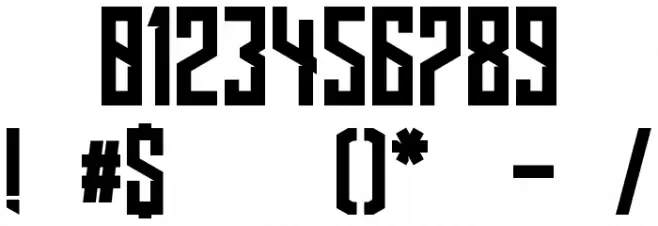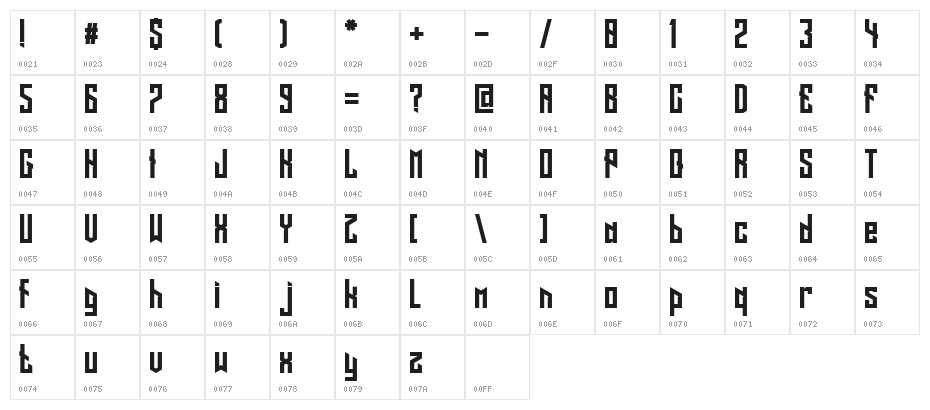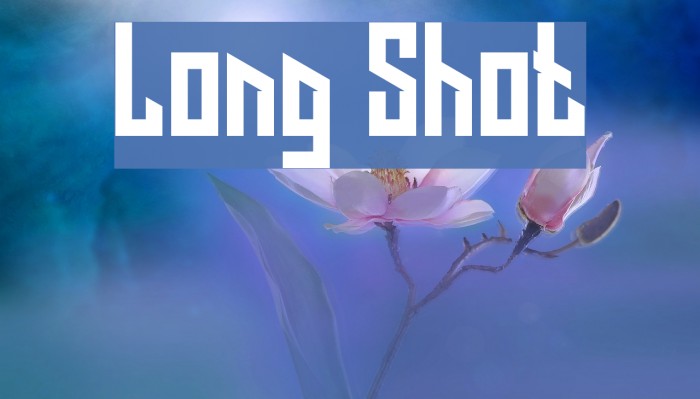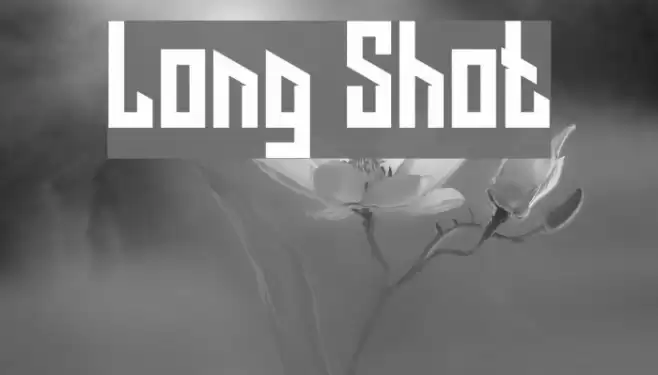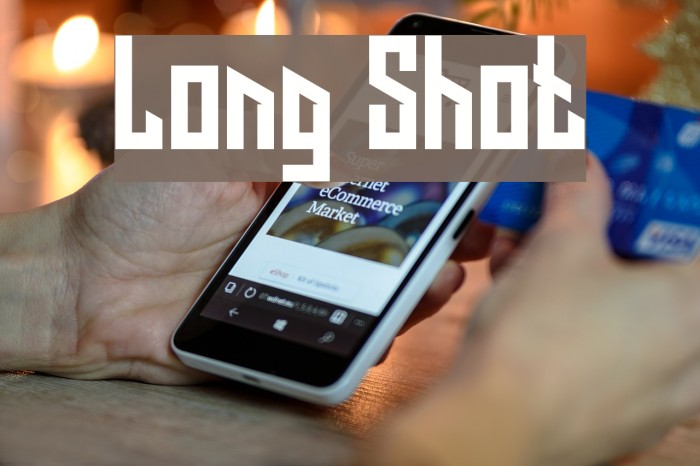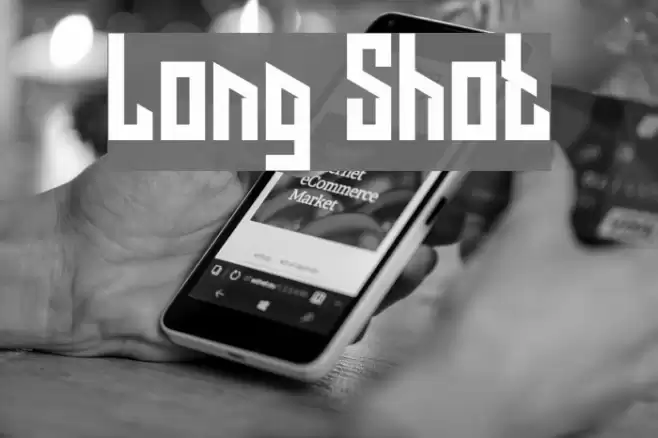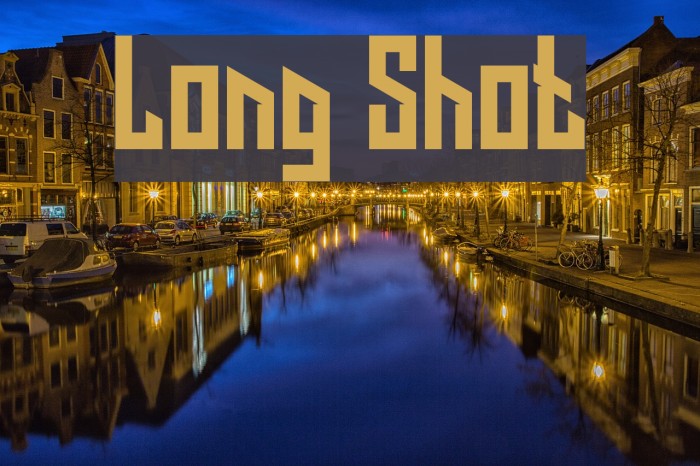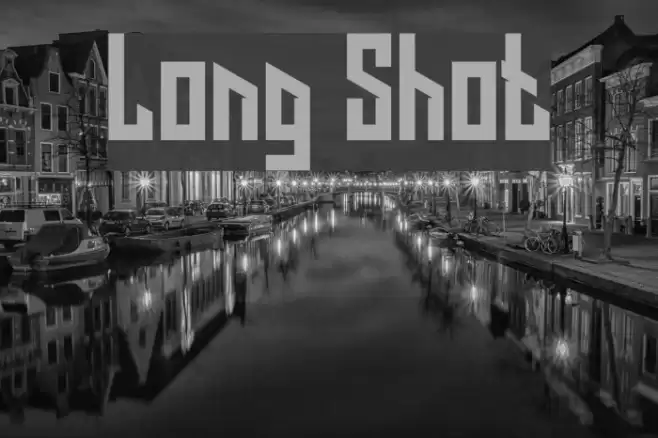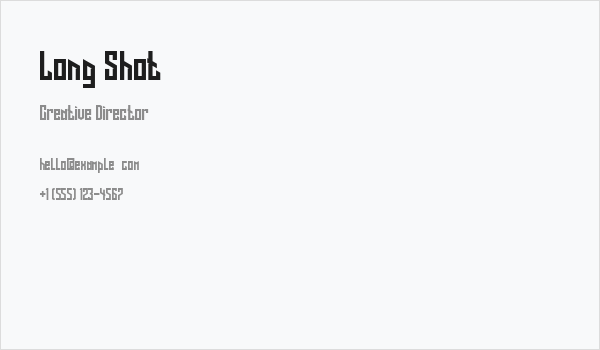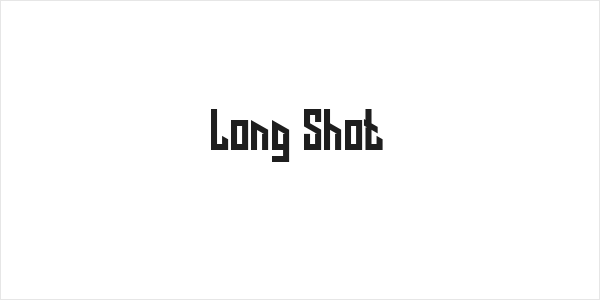
Long Shot Font
Long Shot Description
This font features a bold and geometric design with sharp, angular edges and a distinct blocky appearance. The characters are uniformly structured, creating a cohesive and striking visual impact. The uppercase letters are particularly prominent, with a strong vertical emphasis, while the lowercase letters maintain the same geometric style, offering a consistent look across different text cases. Numbers and special characters follow the same design principles, ensuring a unified aesthetic. The font's unique style makes it suitable for attention-grabbing headlines and modern design projects.